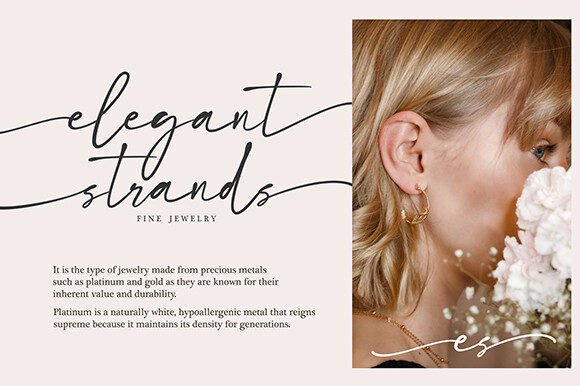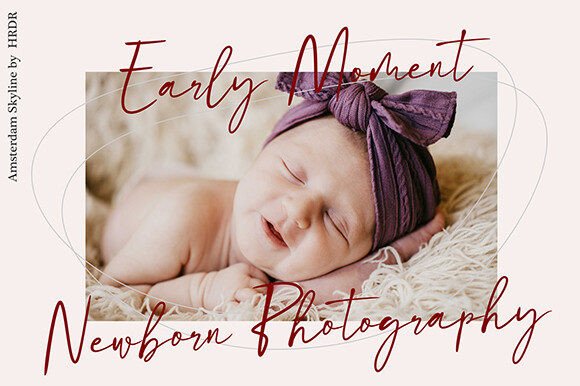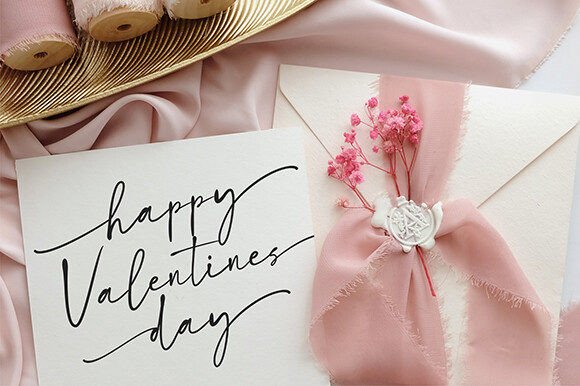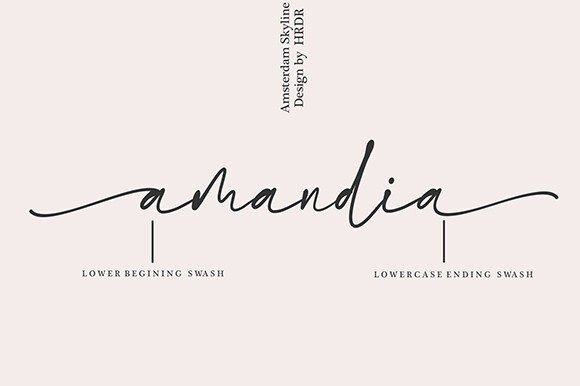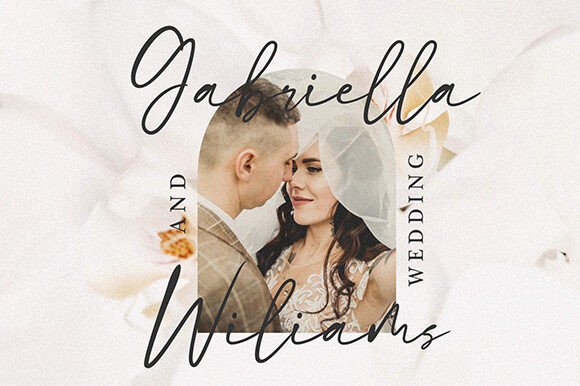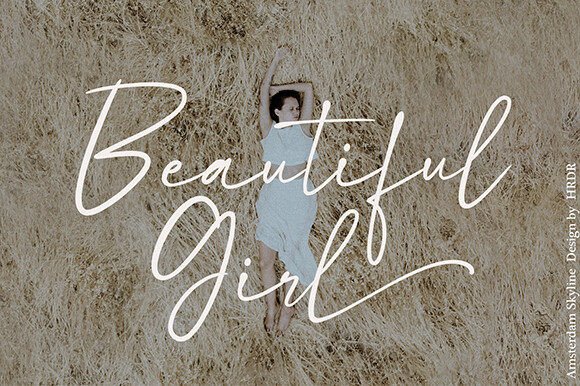
Introducing Amsterdam Skyline Font: A Modern Calligraphy Delight
Are you a designer or crafter looking for a unique and charming font to elevate your creative projects? Look no further than the Amsterdam Skyline Font, a modern calligraphy font that is full of hearts and glyphs. This beautiful font is perfect for adding a touch of elegance and whimsy to your designs, and we’re excited to dive into its features and benefits in this article.
What is Amsterdam Skyline Font?
Amsterdam Skyline Font is a modern calligraphy font that is designed to bring a touch of romance and sophistication to your designs. With its flowing lines and delicate curves, this font is perfect for creating beautiful and eye-catching text-based designs. Whether you’re working on a logo, a poster, or a digital project, Amsterdam Skyline Font is sure to impress.
Key Features of Amsterdam Skyline Font
So, what makes Amsterdam Skyline Font so special? Here are some of its key features:
- Full set of uppercase and lowercase letters: Amsterdam Skyline Font includes a complete set of uppercase and lowercase letters, making it perfect for creating titles, headings, and body text.
- Multilingual symbols: This font includes a range of multilingual symbols, allowing you to create designs that cater to different languages and cultures.
- Numerals, punctuation, and ligatures: Amsterdam Skyline Font also includes a set of numerals, punctuation marks, and ligatures, giving you everything you need to create beautiful and functional text-based designs.
- Hearts and glyphs: One of the standout features of Amsterdam Skyline Font is its inclusion of hearts and glyphs, adding a touch of whimsy and playfulness to your designs.
Who is Amsterdam Skyline Font for?
Amsterdam Skyline Font is perfect for designers, crafters, and anyone looking to add a touch of elegance and sophistication to their creative projects. Whether you’re working on:
- Logos and branding: Use Amsterdam Skyline Font to create a beautiful and memorable logo that reflects your brand’s personality.
- Posters and flyers: Add a touch of whimsy and elegance to your posters and flyers with this stunning font.
- Digital projects: Amsterdam Skyline Font is perfect for use in digital projects, such as social media graphics, email headers, and website text.
- Crafting and DIY projects: If you’re a crafter or DIY enthusiast, Amsterdam Skyline Font is a great choice for adding a personal touch to your projects, such as handmade cards, invitations, and scrapbooking.
Tips for Using Amsterdam Skyline Font
Here are some tips for getting the most out of Amsterdam Skyline Font:
- Experiment with different sizes and colors: Amsterdam Skyline Font looks great in a range of sizes and colors, so don’t be afraid to experiment and find the perfect combination for your design.
- Pair with other fonts: Try pairing Amsterdam Skyline Font with other fonts to create a unique and eye-catching design.
- Use glyphs and hearts to add visual interest: The hearts and glyphs in Amsterdam Skyline Font are a great way to add visual interest to your designs, so be sure to use them to break up text and create a more dynamic layout.
Amsterdam Skyline Font is a beautiful and versatile modern calligraphy font that is perfect for designers, crafters, and anyone looking to add a touch of elegance and whimsy to their creative projects. With its full set of uppercase and lowercase letters, multilingual symbols, numerals, punctuation, and ligatures, this font has everything you need to create stunning text-based designs. So why not give Amsterdam Skyline Font a try and see the difference it can make in your designs?